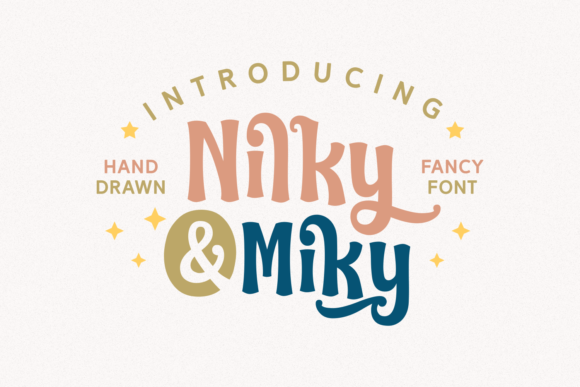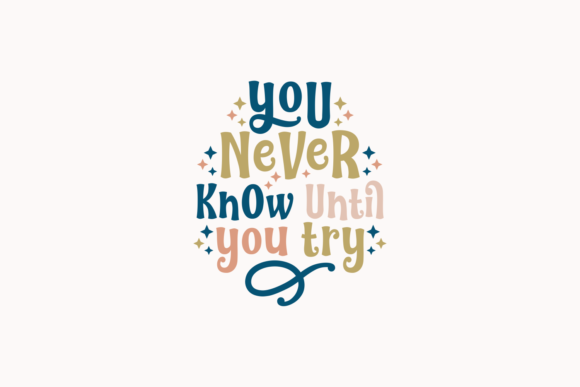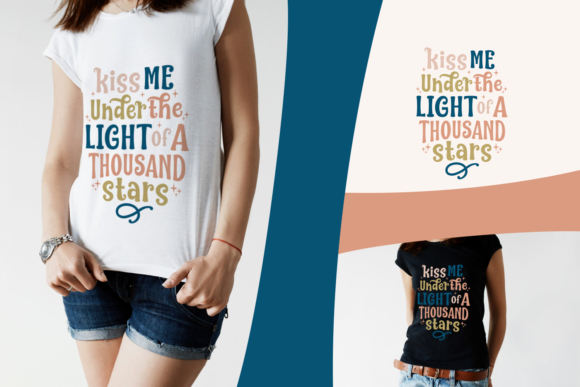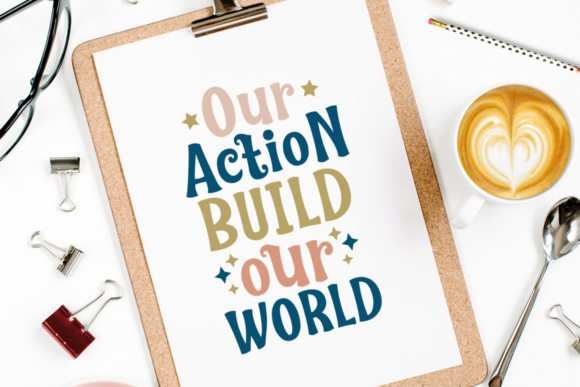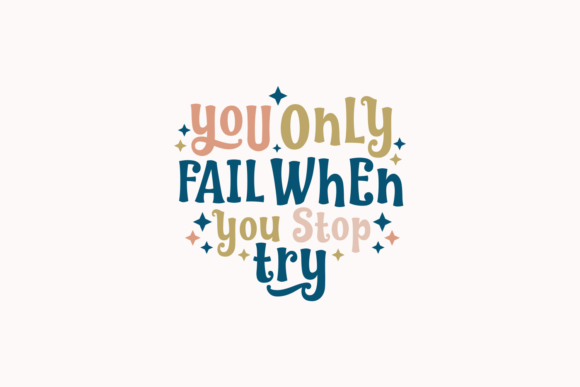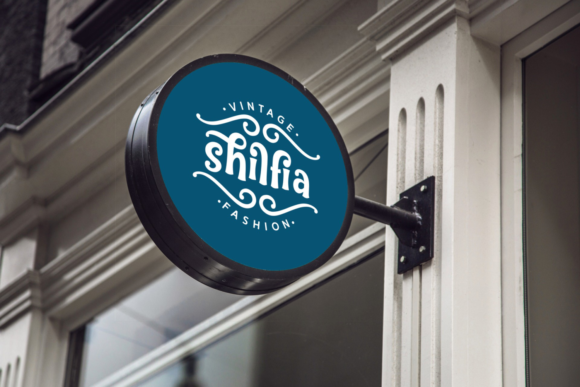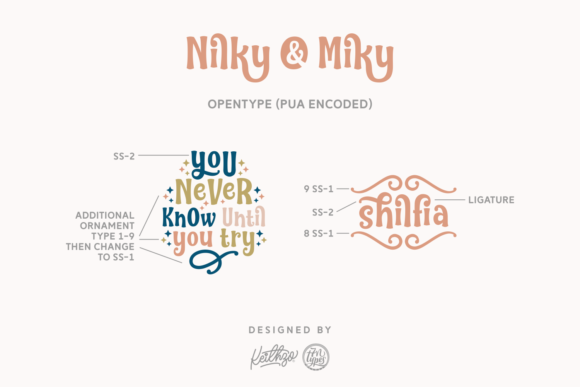
Nilky & Miky Font
About Nilky & Miky Font
Nilky & Miky is a beautifully whimsical display font, ideal for use wherever imaginable! This bold and well-weighted display has a bouncy, swashy retro look that works well in apparel and merchandising, but lends itself to a larger array of creative projects.